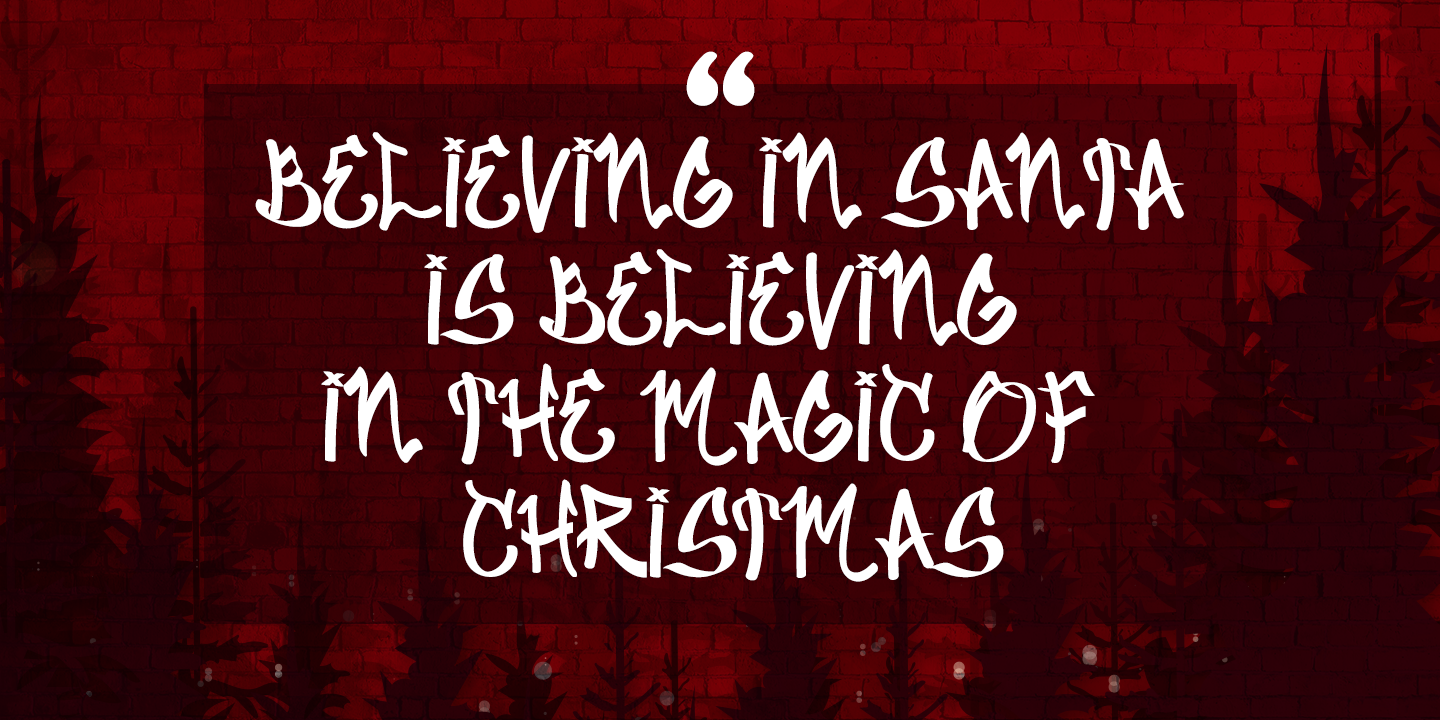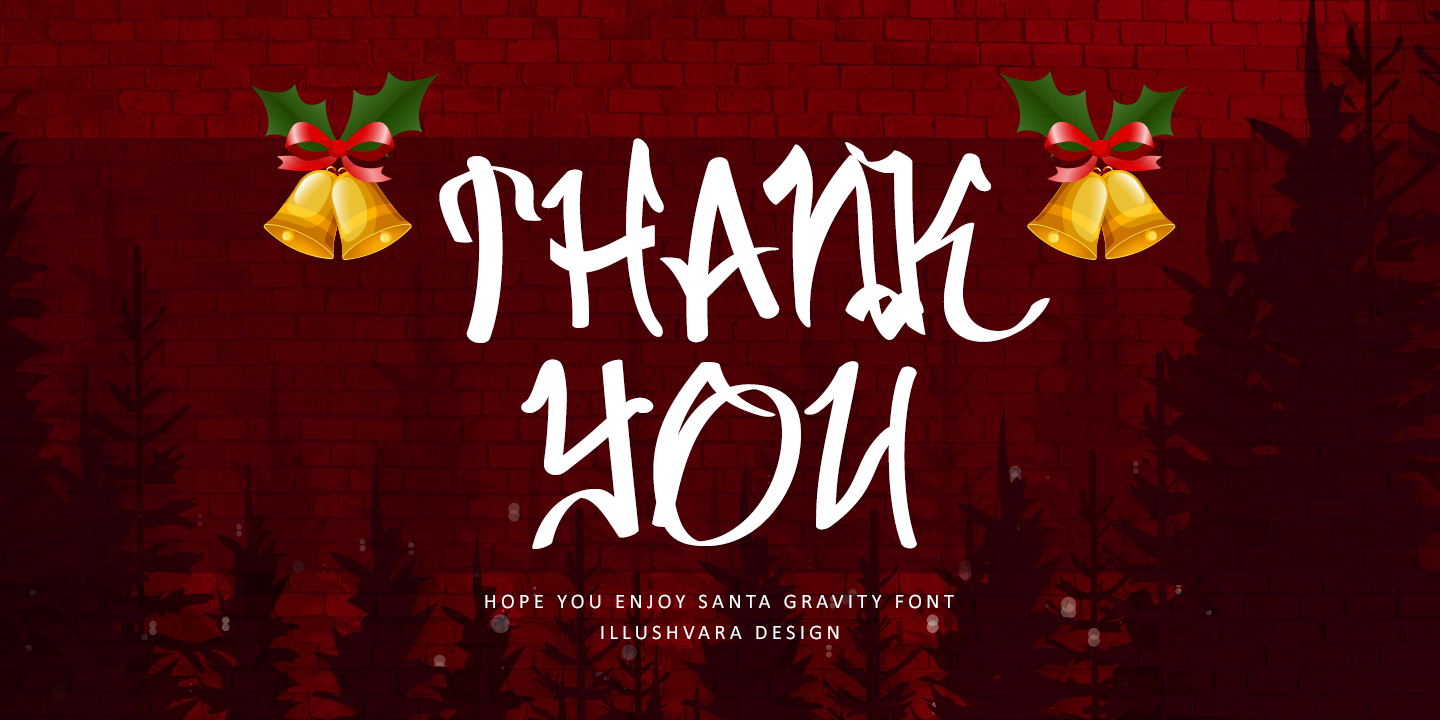
Santa Gravity is a fun display font, featuring an urban style. Fun and casual, this font is ideal for any design you wish to develop for Christmas Season!
Features :
Uppercase and lowercase
Numbers
Symbols
Multilingual Accent